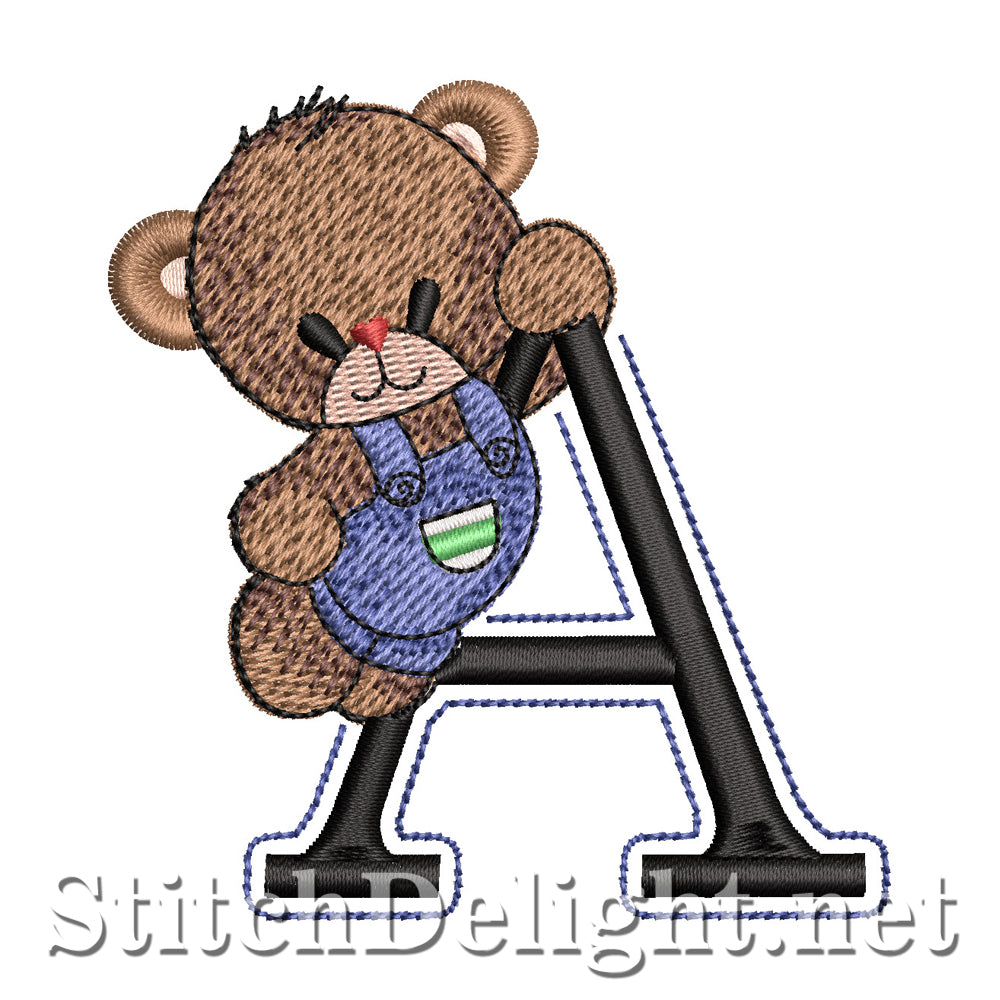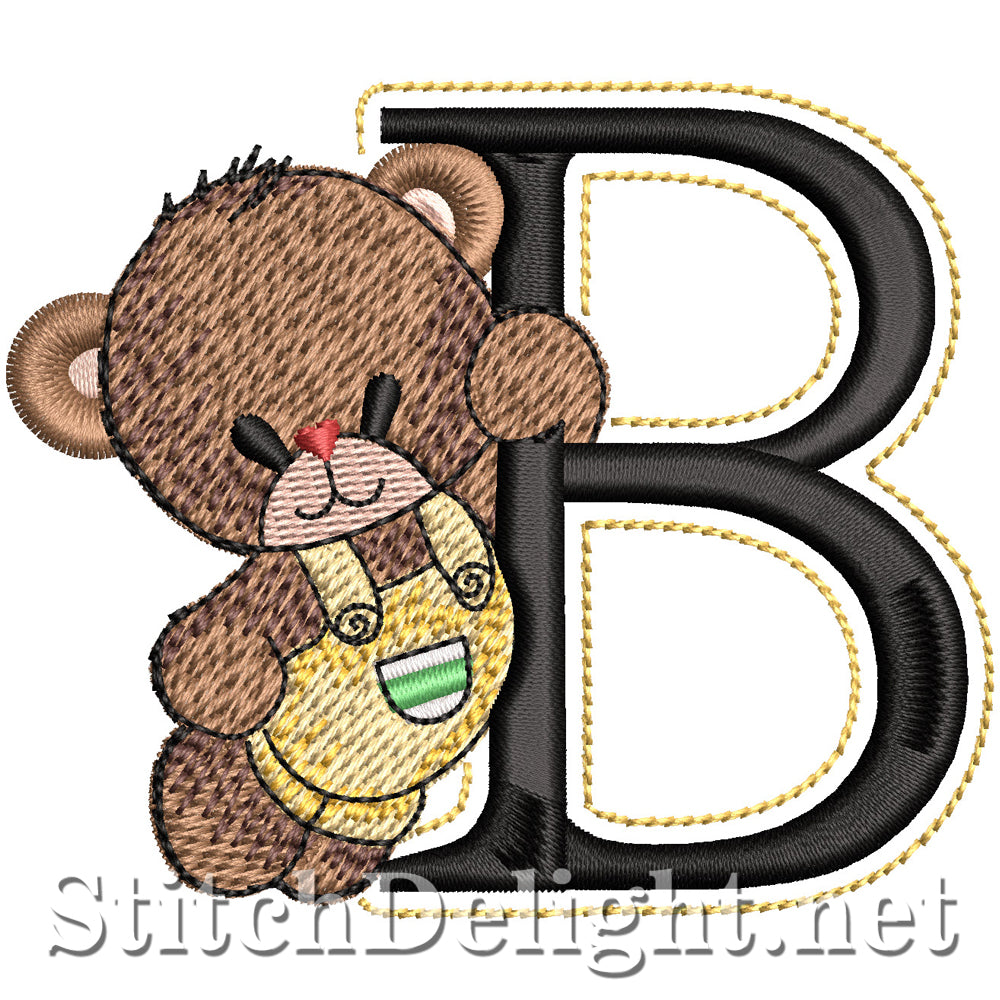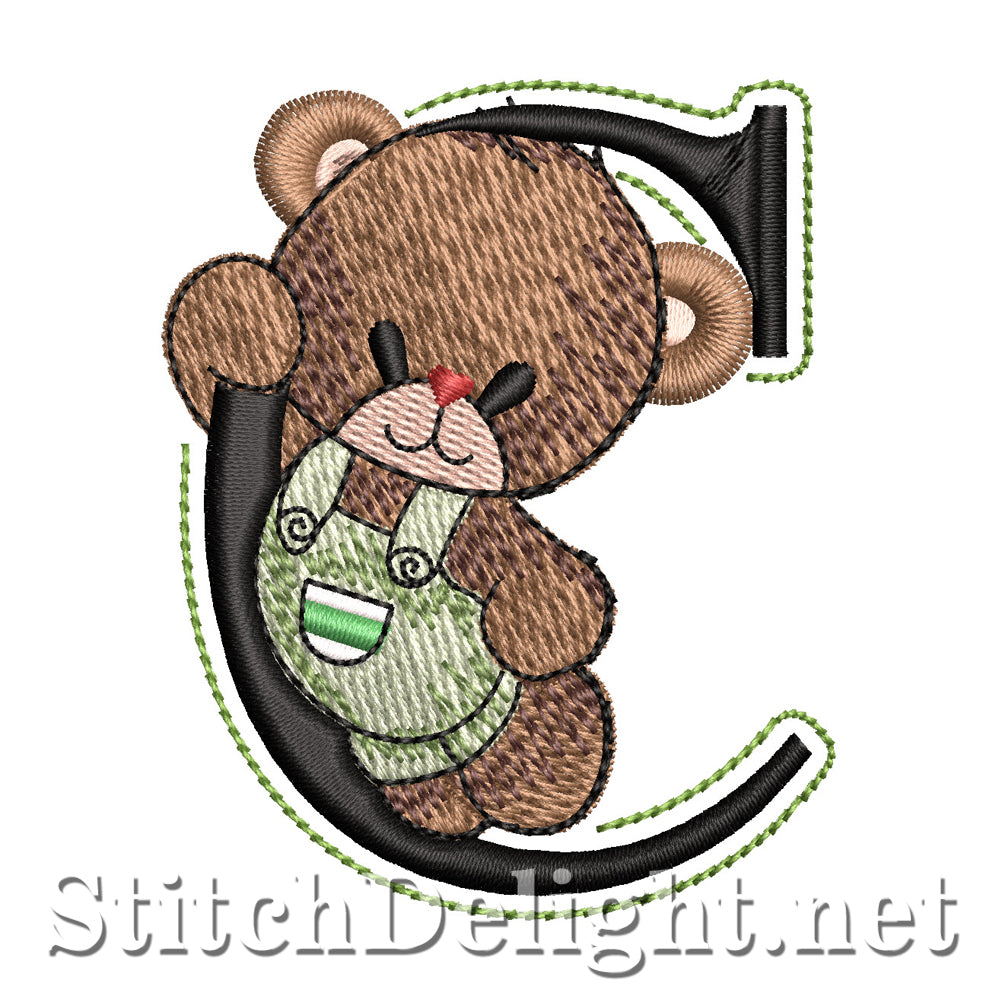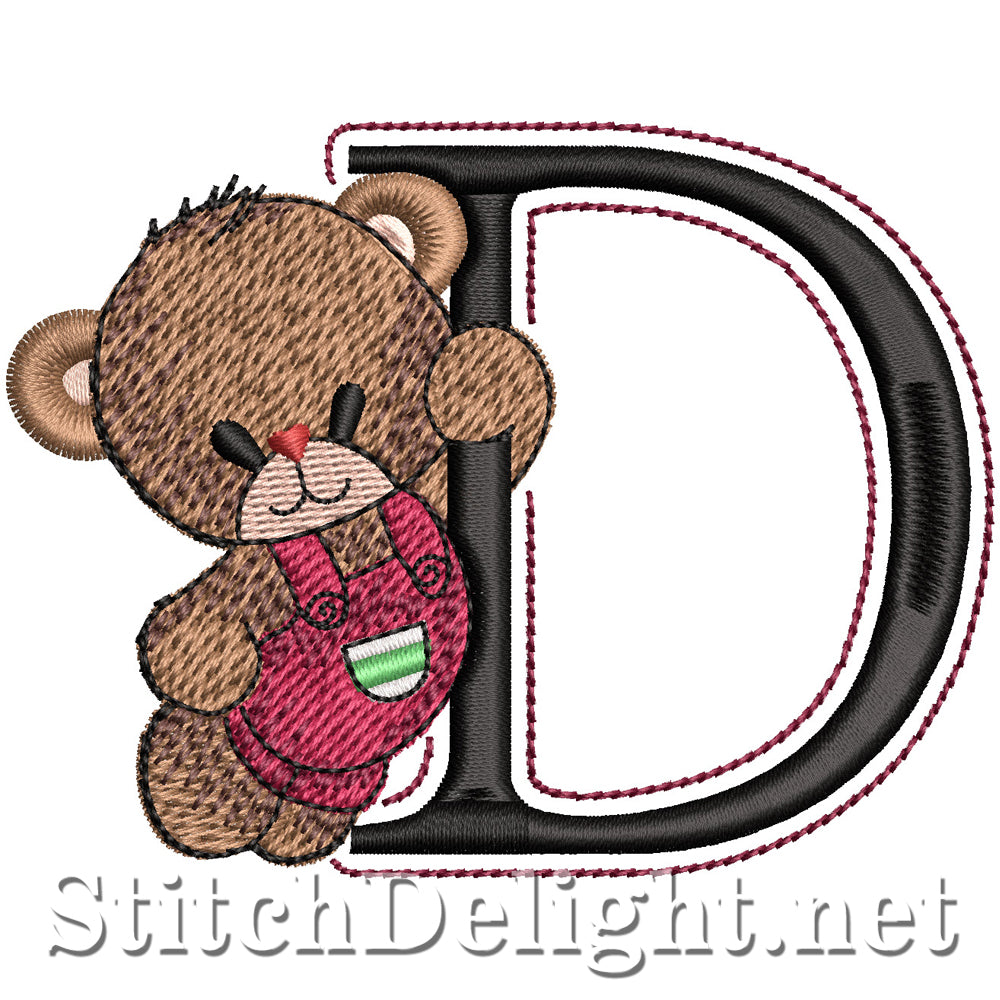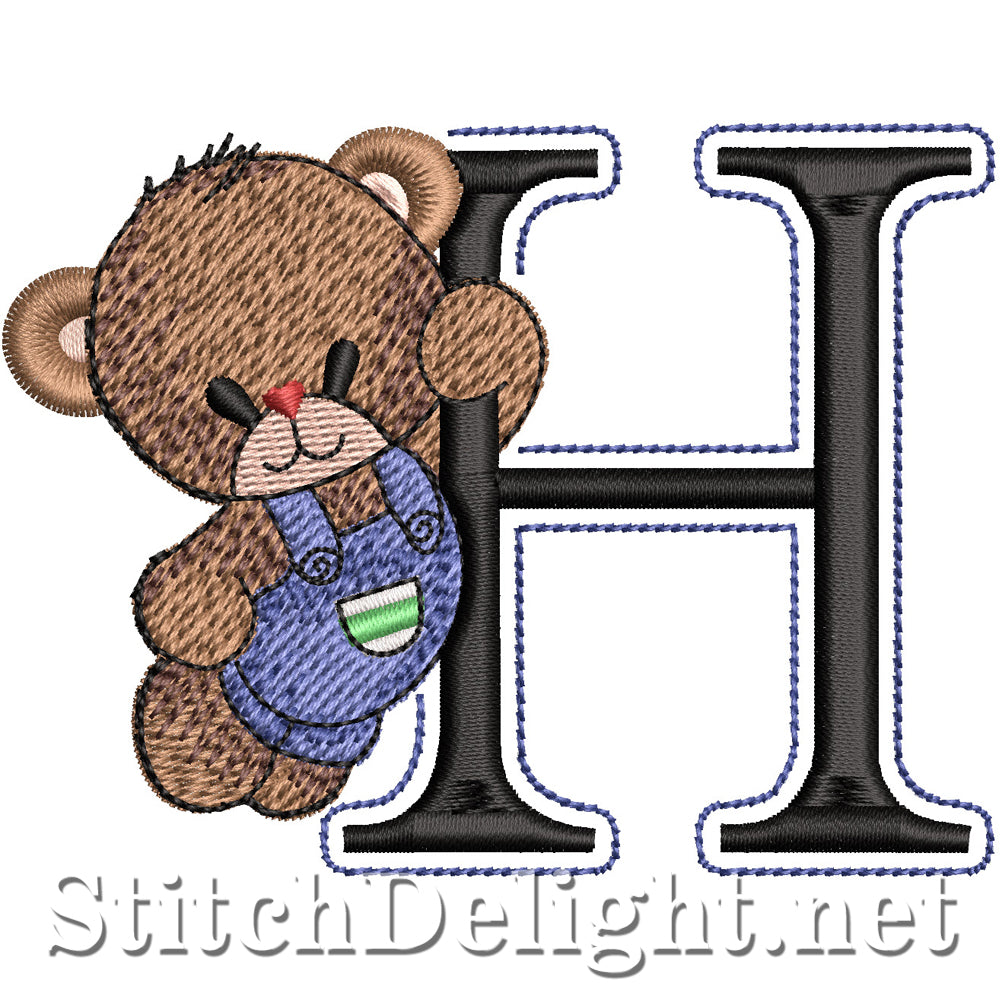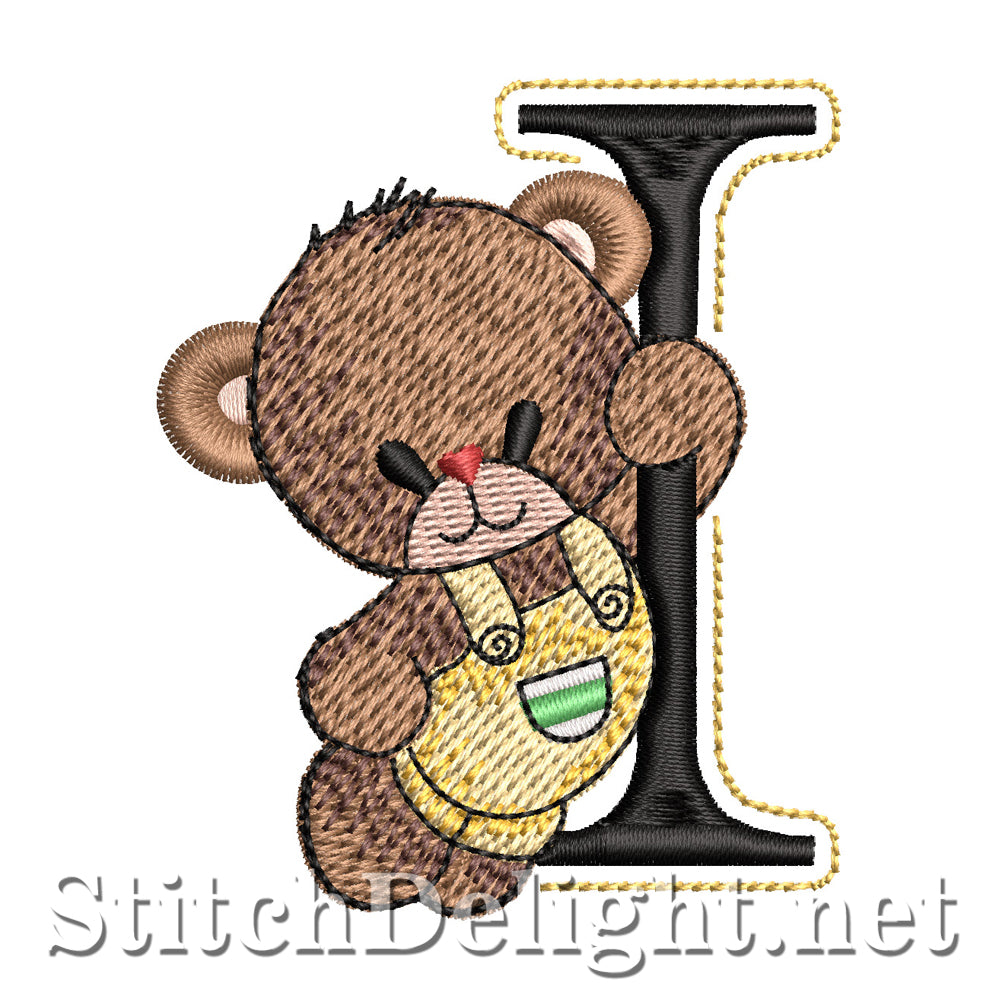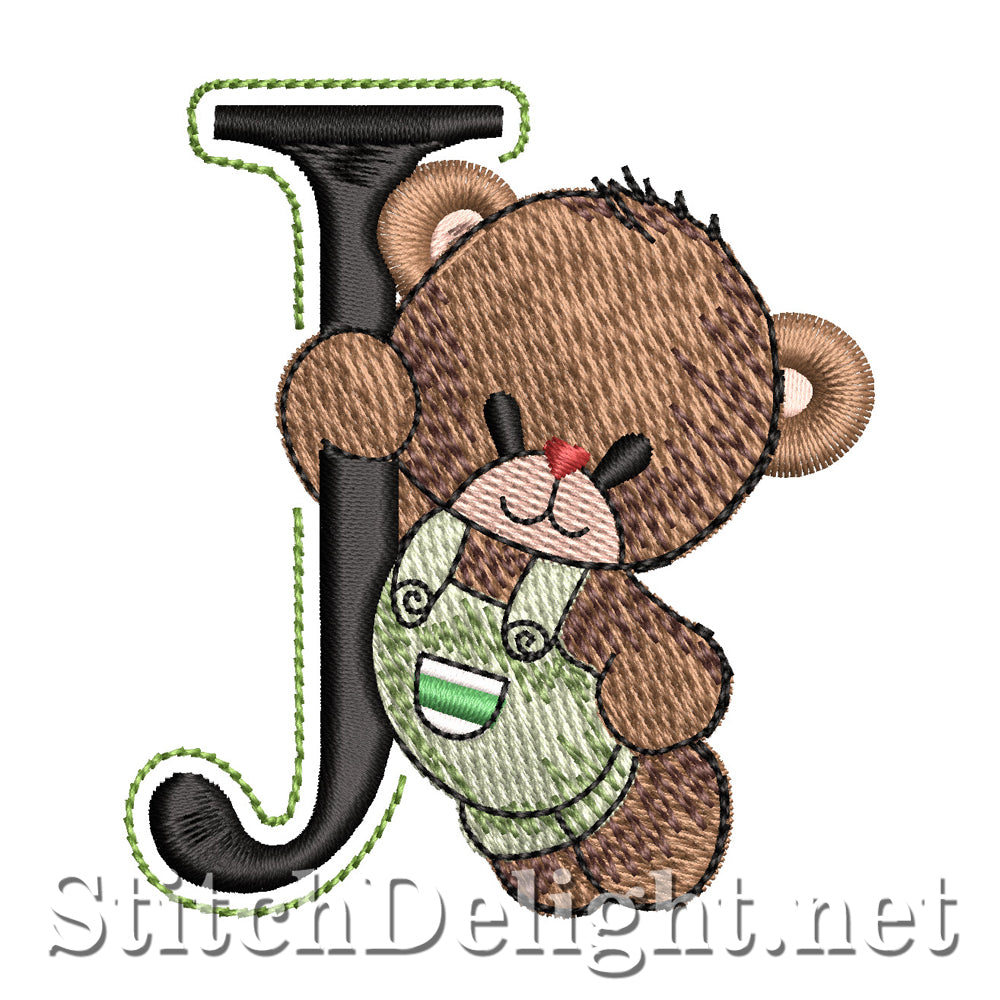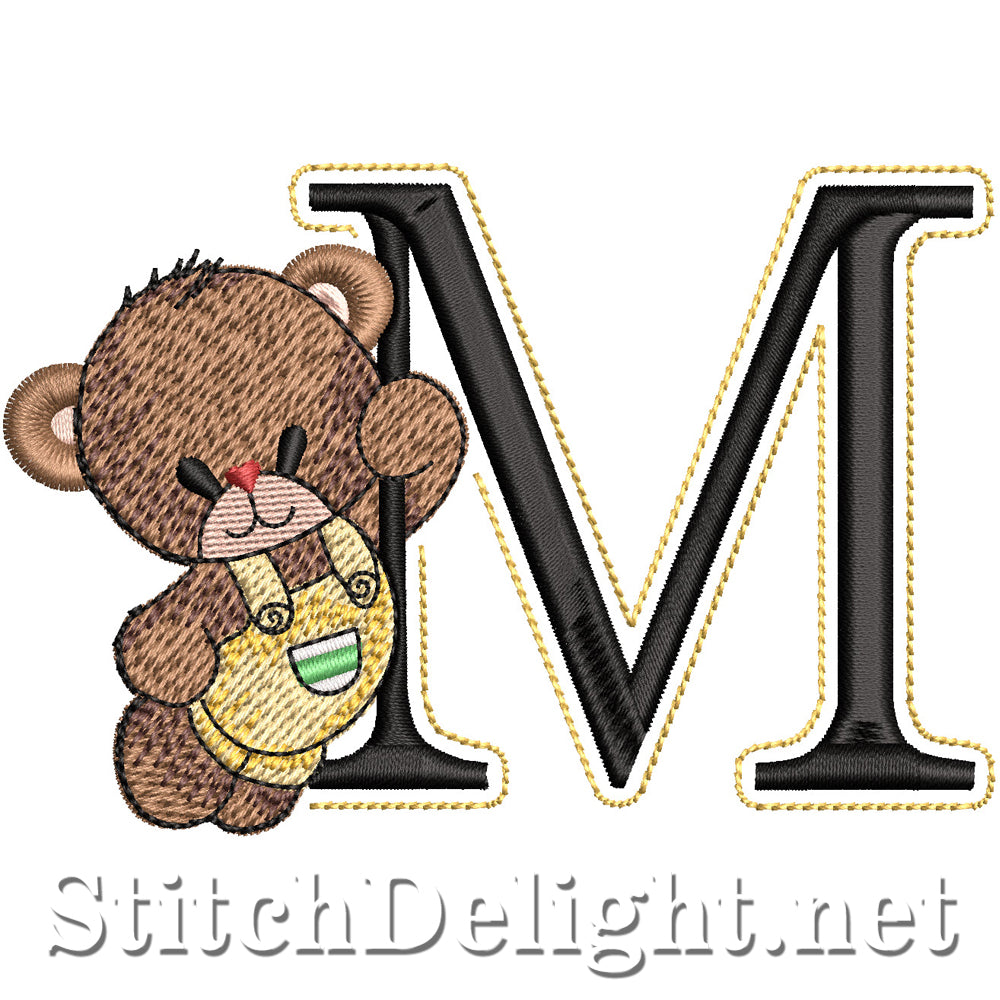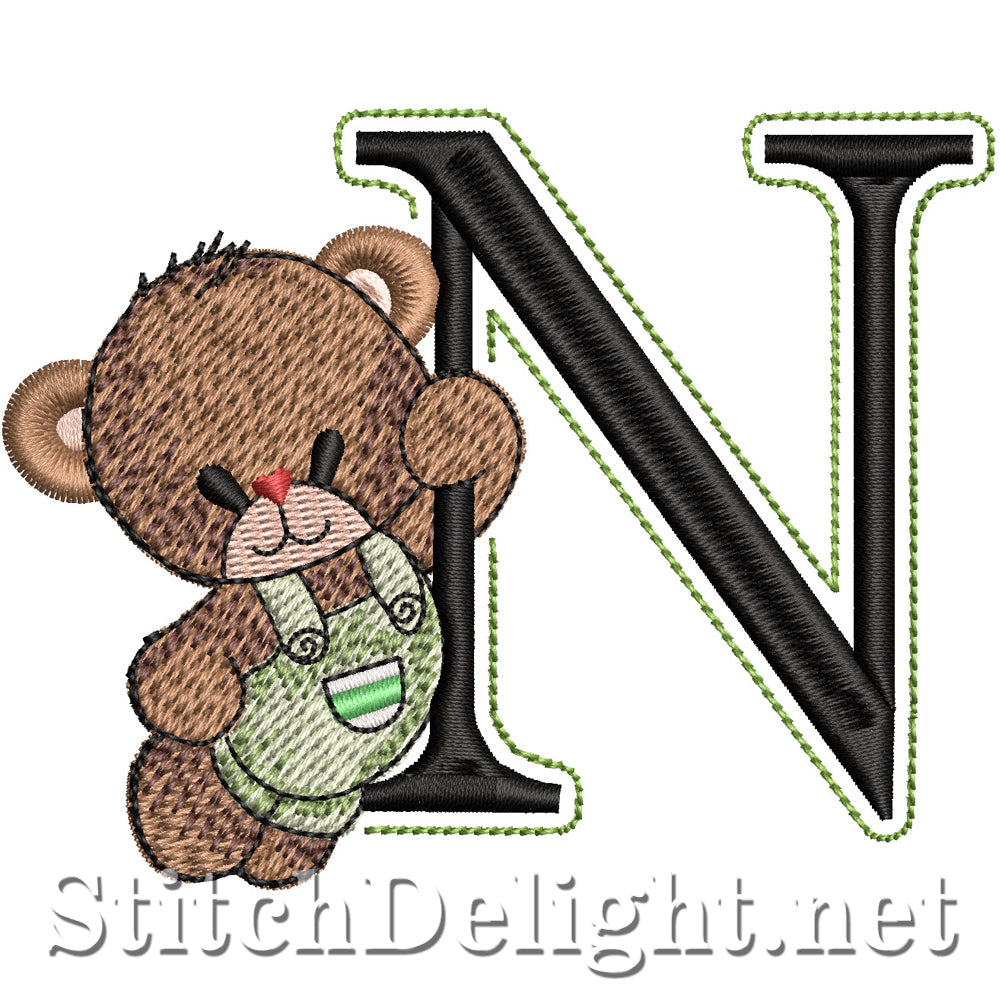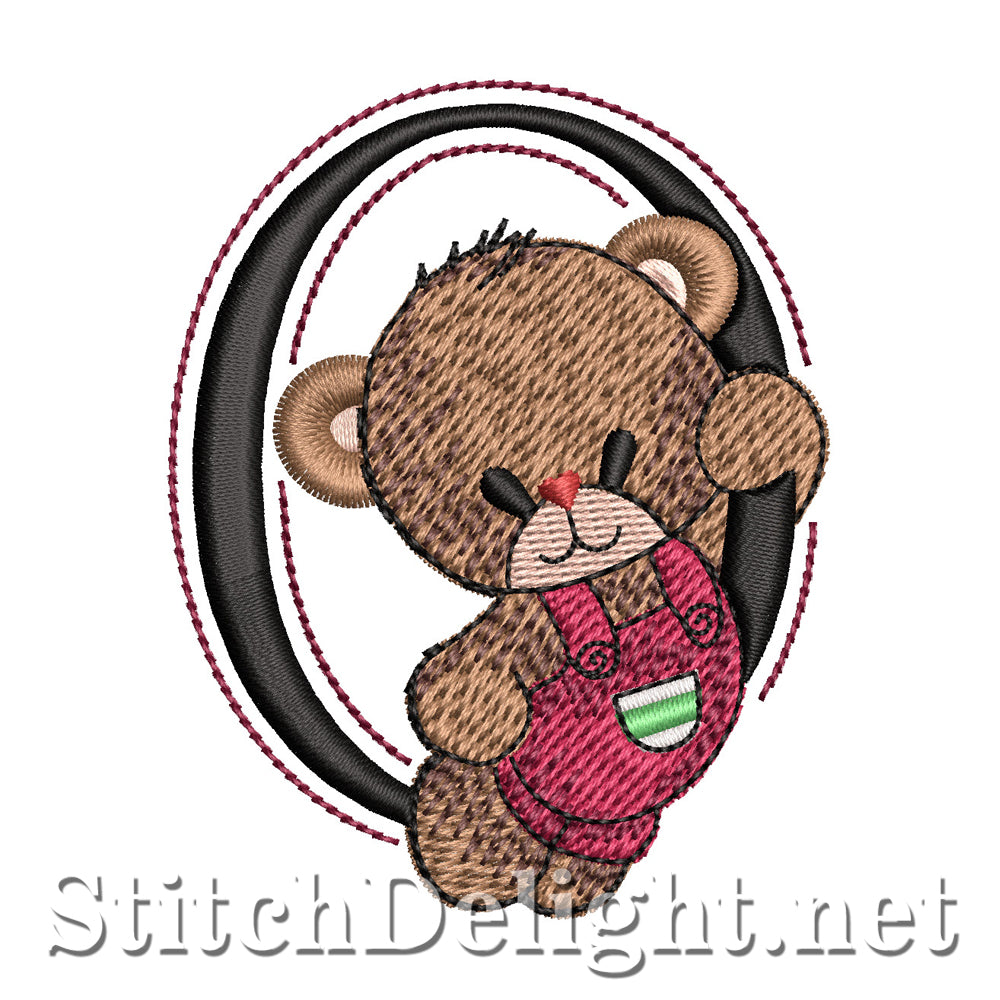
SDS5418 Teddy Bear Font Complete
This adorable little font is made to be stitched using your 5x7" hoop and on average has only 9 colour changes. Most letters can be stitched using your 4x4" hoop with the exception of letters M and W as they are wider.